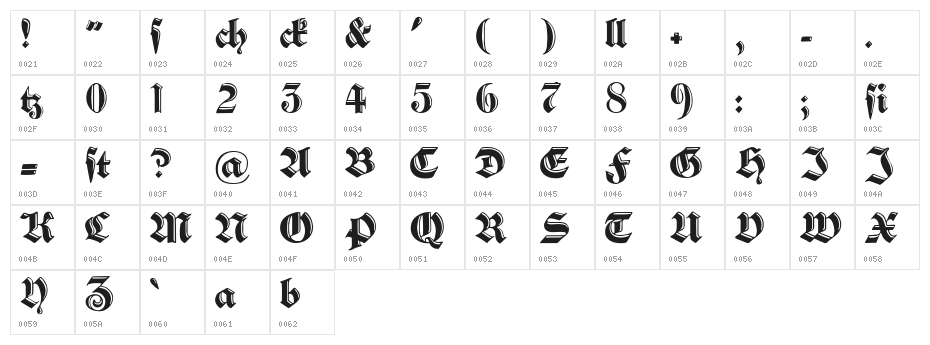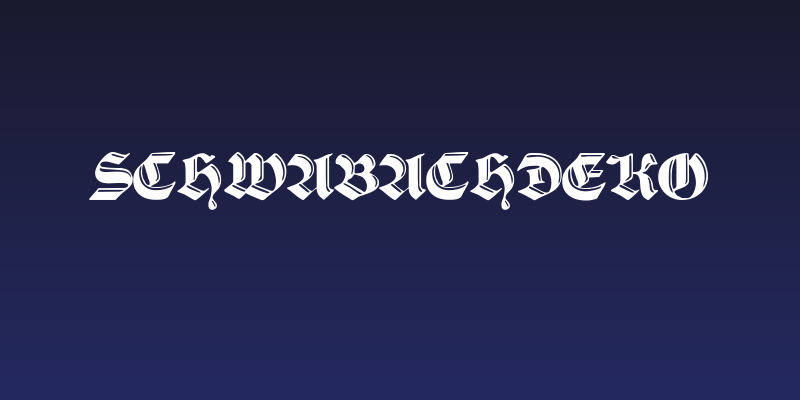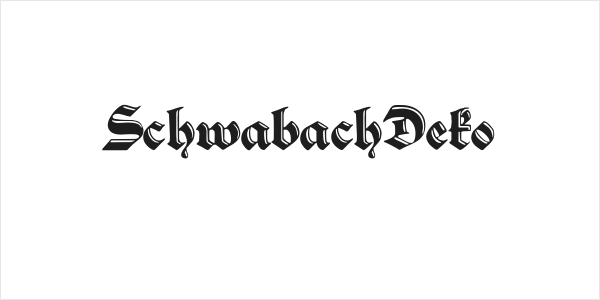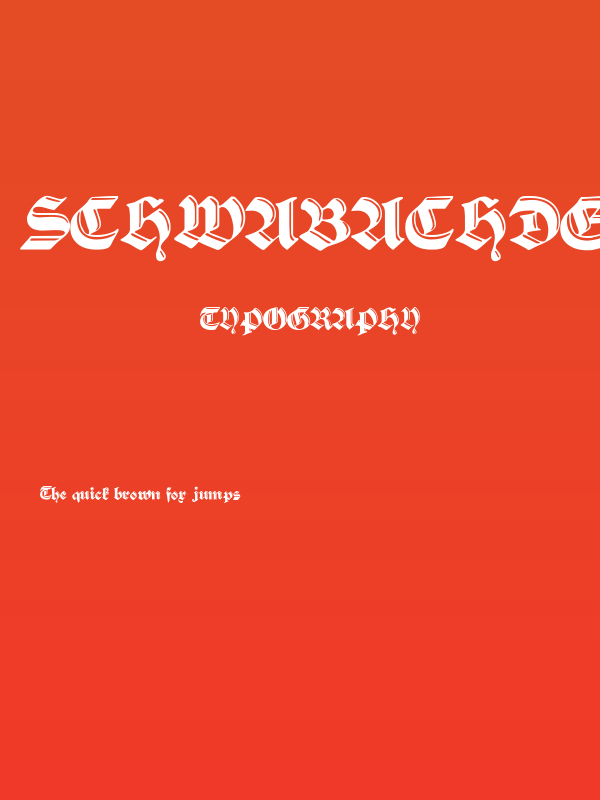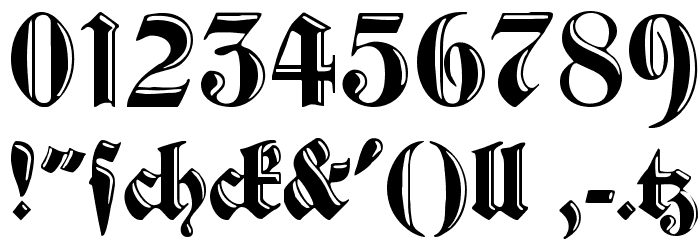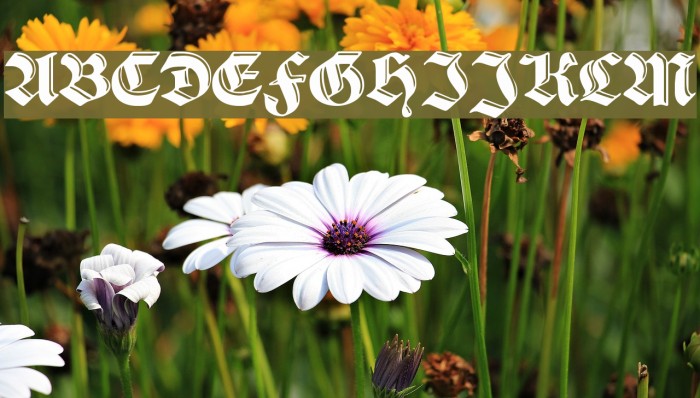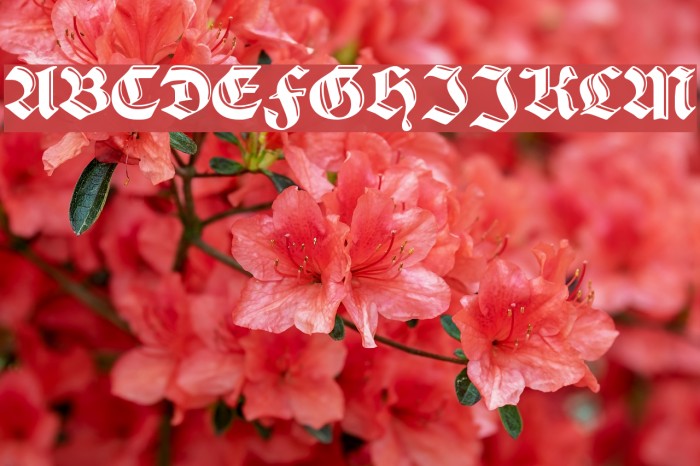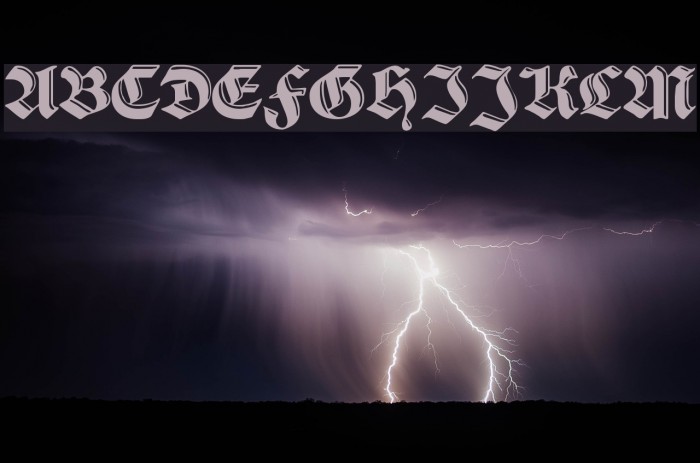
SchwabachDeko Font
SchwabachDeko Description
This font exhibits a classic blackletter style, characterized by its ornate and intricate letterforms. The uppercase letters are bold and angular, with sharp serifs and decorative flourishes that give them a medieval appearance. The lowercase letters maintain the same level of detail, featuring tight curves and pointed edges. The numerals are equally stylized, with a consistent weight and elaborate design that complements the alphabet. Special characters are crafted with the same attention to detail, ensuring a cohesive look across all glyphs. This font's historical aesthetic makes it suitable for projects that require a touch of antiquity and elegance.
| Categories | Gothic |
| Overall Style | Vintage |
| Use Case | Logos, Headlines, Decorative text |
| Proposed Projects | Ideal for historical documents, certificates, book covers, and branding that requires a vintage or gothic touch. |